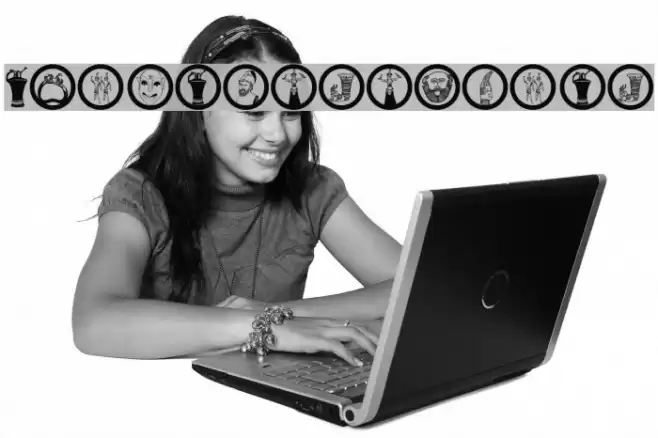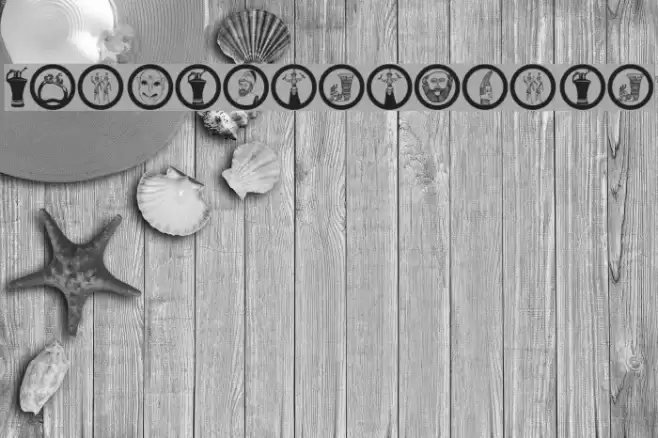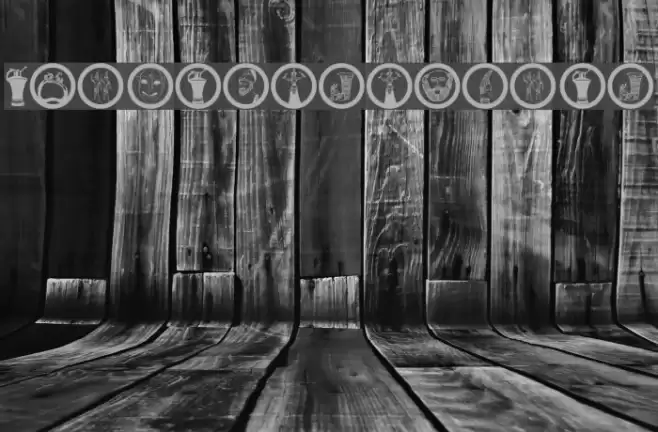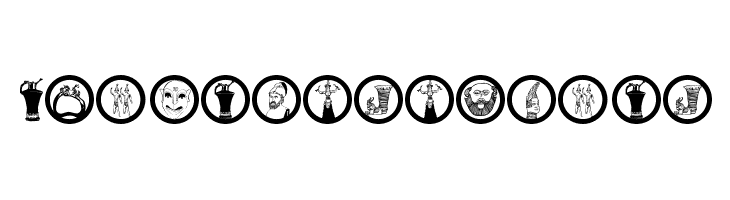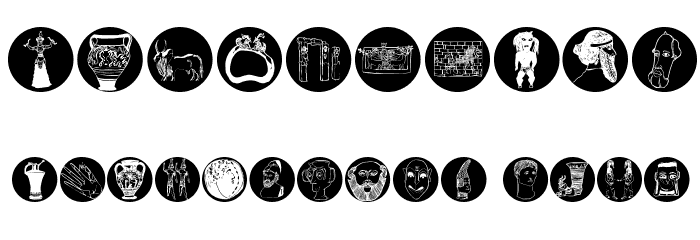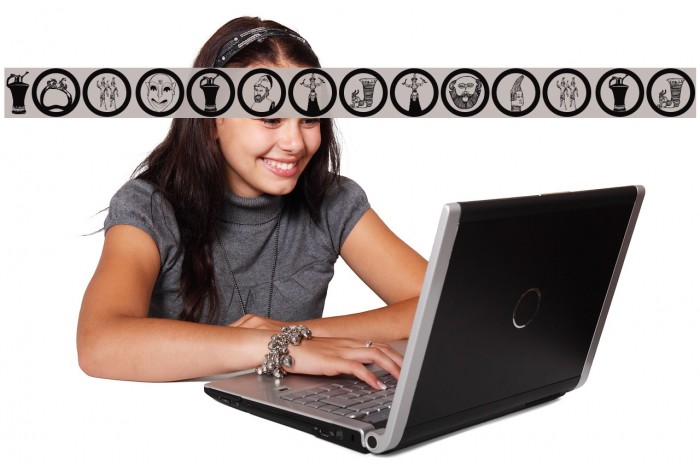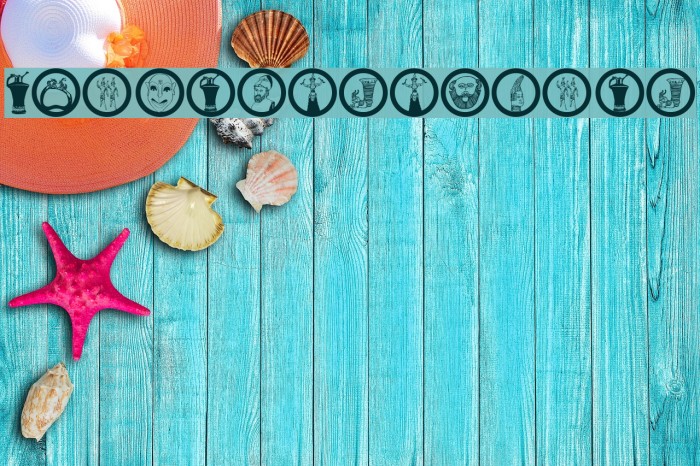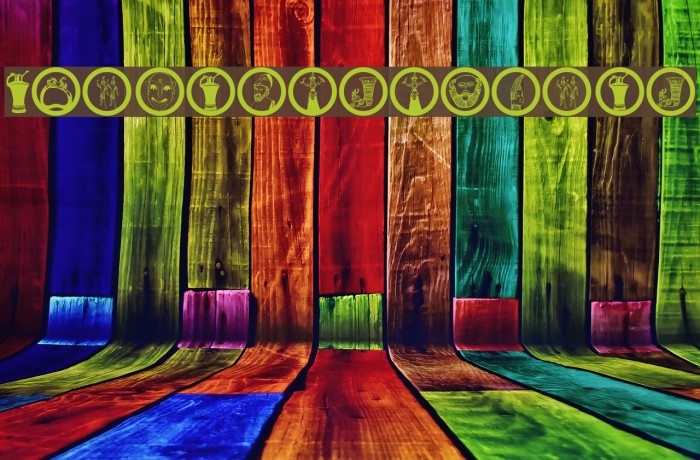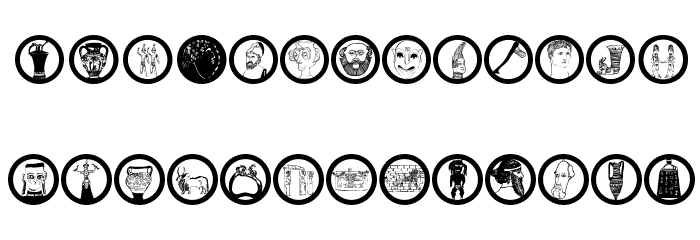
Archaeological Font
Archaeological Description
A decorative display font composed of hand-drawn archaeological artifacts, ancient figures, pottery, masks, and historical objects, each representing a different character. The glyphs are highly illustrative and detailed, evoking a sense of antiquity and archaeological discovery.
Hand-drawn archaeological illustrations form each character in a decorative display style from Uncategorized fonts.
- Proposed Projects: Museum branding, educational posters, history-themed event invitations, book covers on archaeology, themed merchandise.
- Overall Style: Decorative, Thematic, Hand-drawn
- Use Case: Logos, Headlines, Posters, Themed Graphics